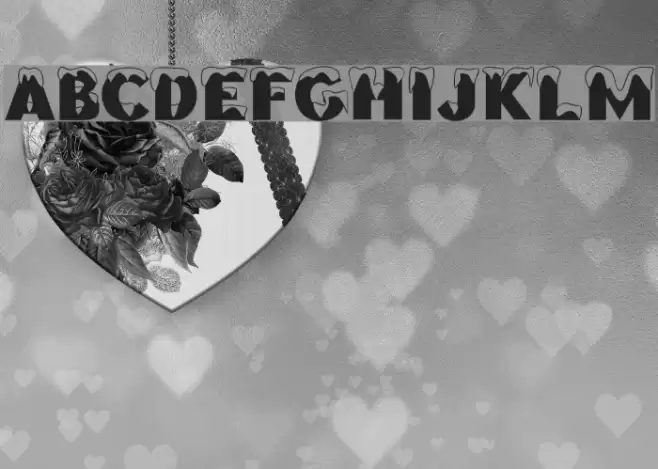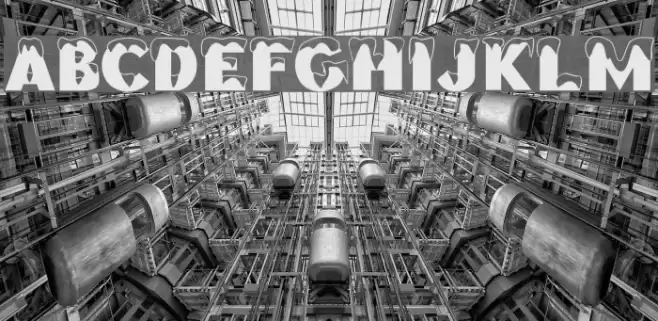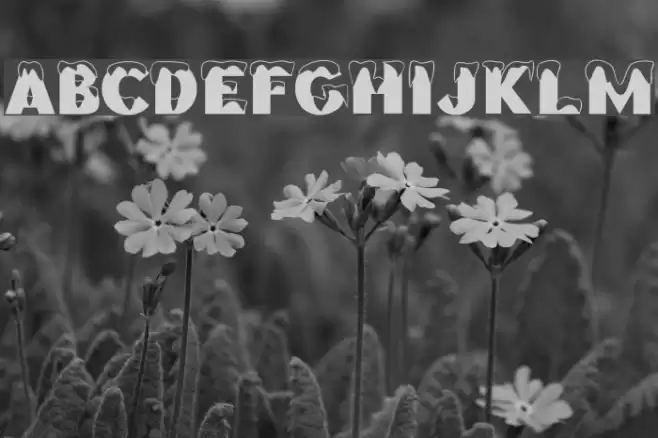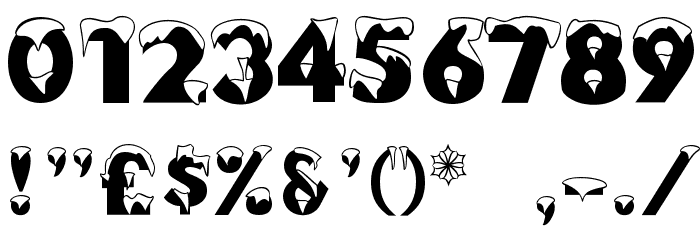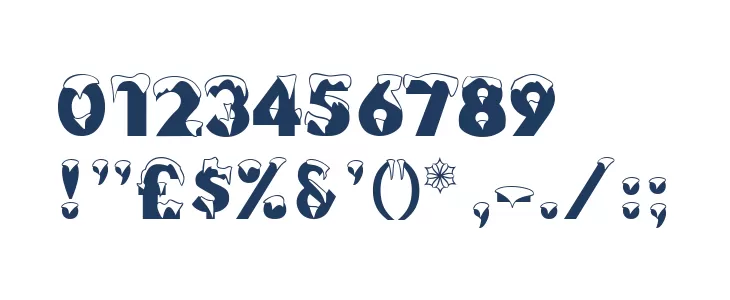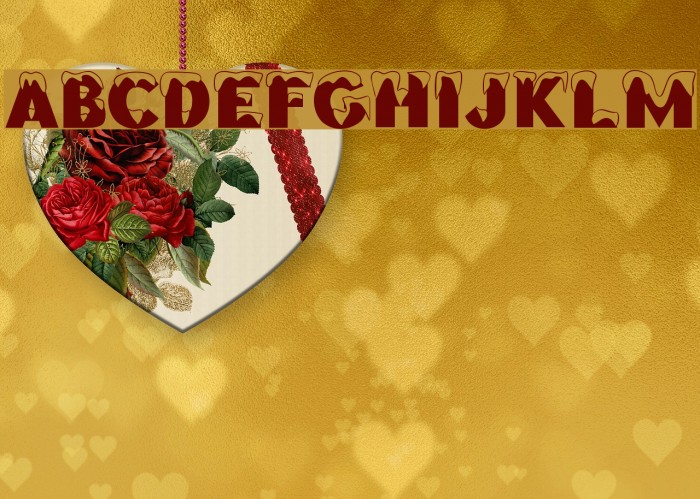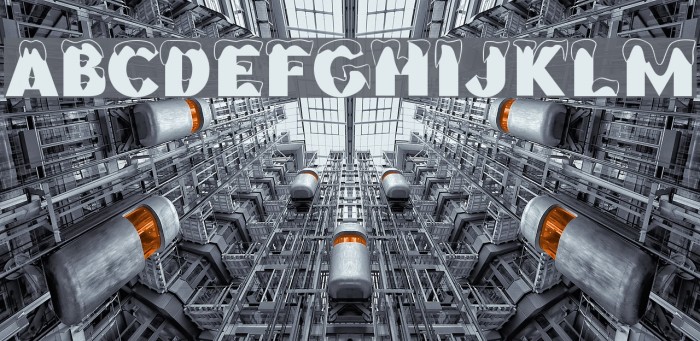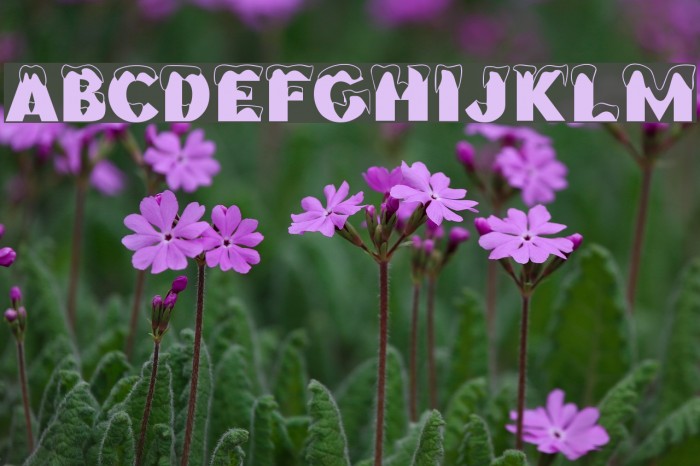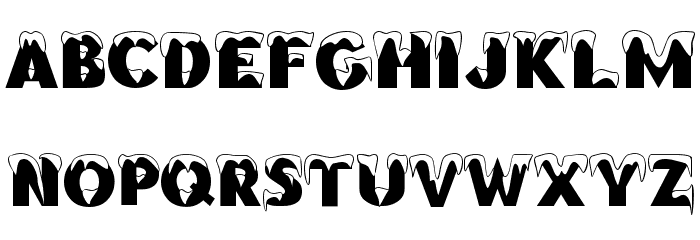
Brrrrr Regular Font
Brrrrr Regular Description
This font features a playful and whimsical design, characterized by its bold and decorative style. Each character is adorned with a snow-capped effect, giving it a frosty and winter-themed appearance. The letters are bold and have a strong presence, making them ideal for capturing attention. The unique design elements make it suitable for festive and holiday-themed projects, adding a touch of fun and creativity. The font maintains a consistent weight throughout, ensuring readability while still offering a decorative flair. Its distinct style makes it perfect for projects that require a touch of seasonal charm.
A bold, decorative font with a snow-capped, winter-themed design from Decorative fonts.
- Proposed Projects: Ideal for holiday cards, winter festival posters, seasonal branding, and festive invitations.